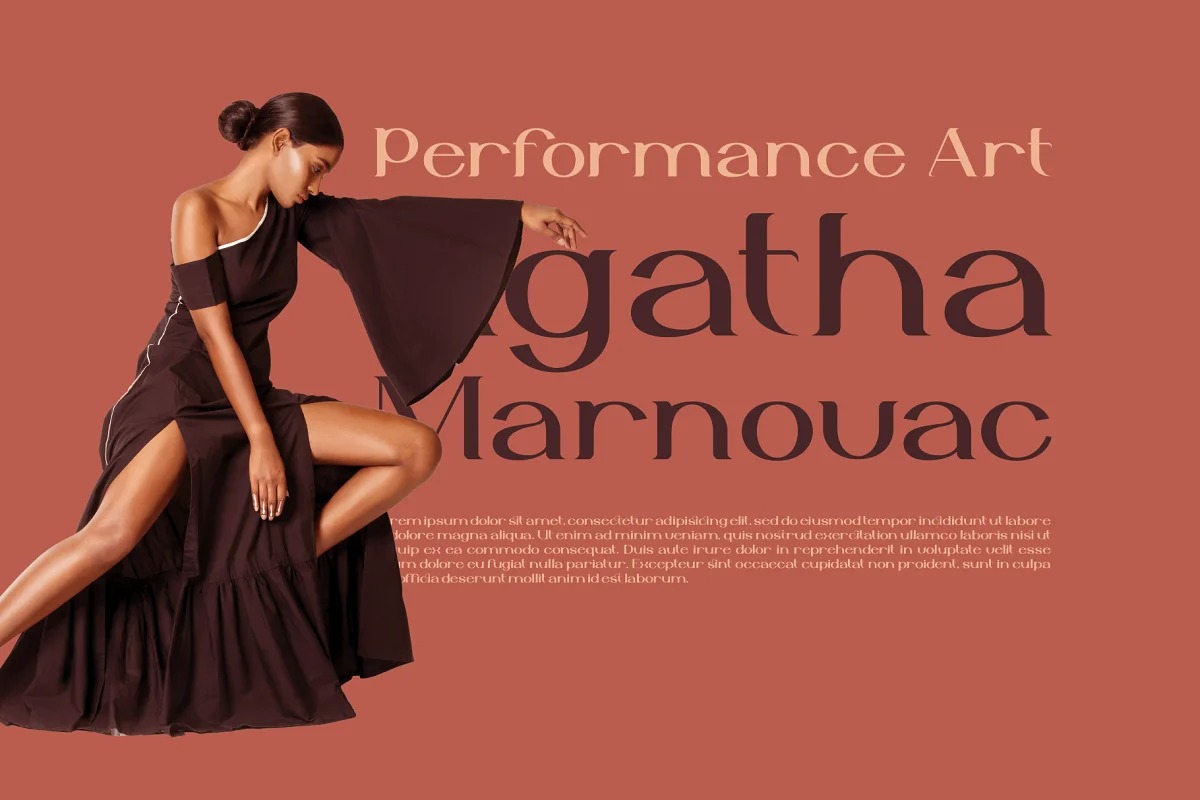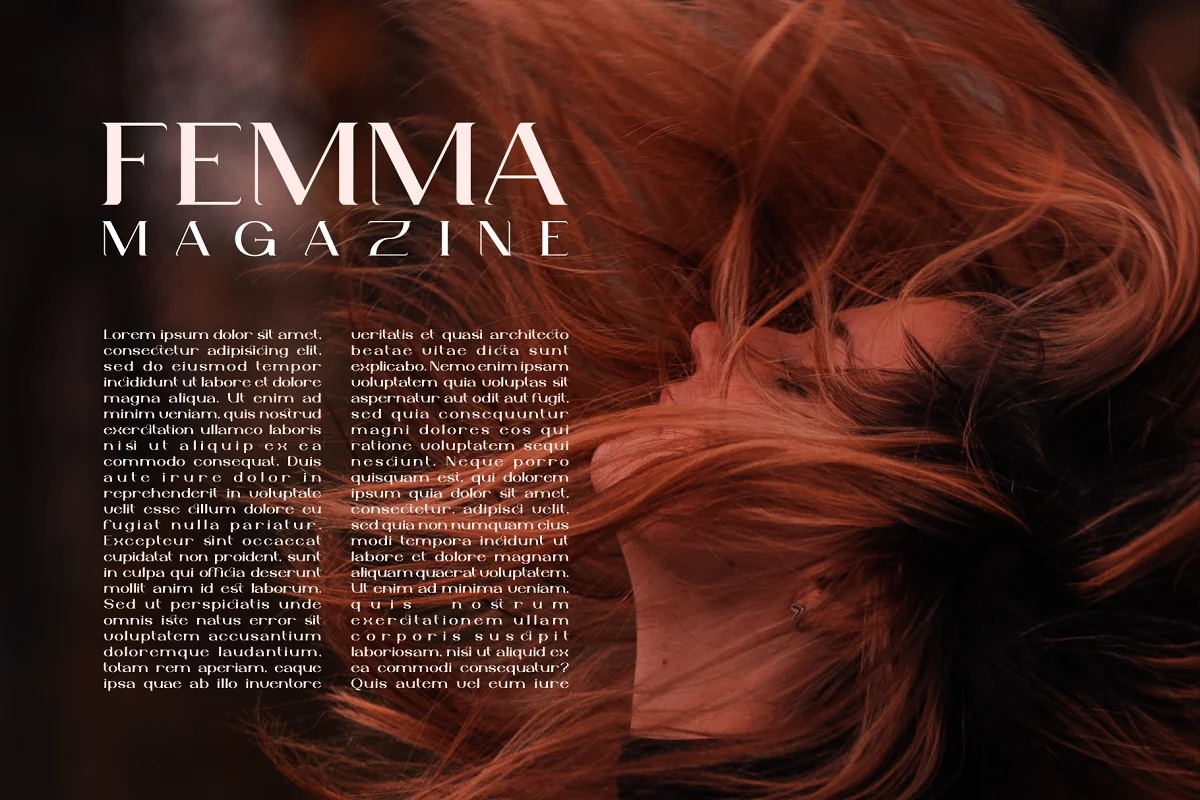
Monstellar Font
Monstellar Serif Font
This is a stylish serif font created by RTSTD with subtle curves and playful proportions. It’s a very versatile font that works great in large and small sizes.
Monstellar is perfect for branding projects, Logo design, Clothing Branding, product packaging, magazine headers, or simply as a stylish text overlay to any background image.